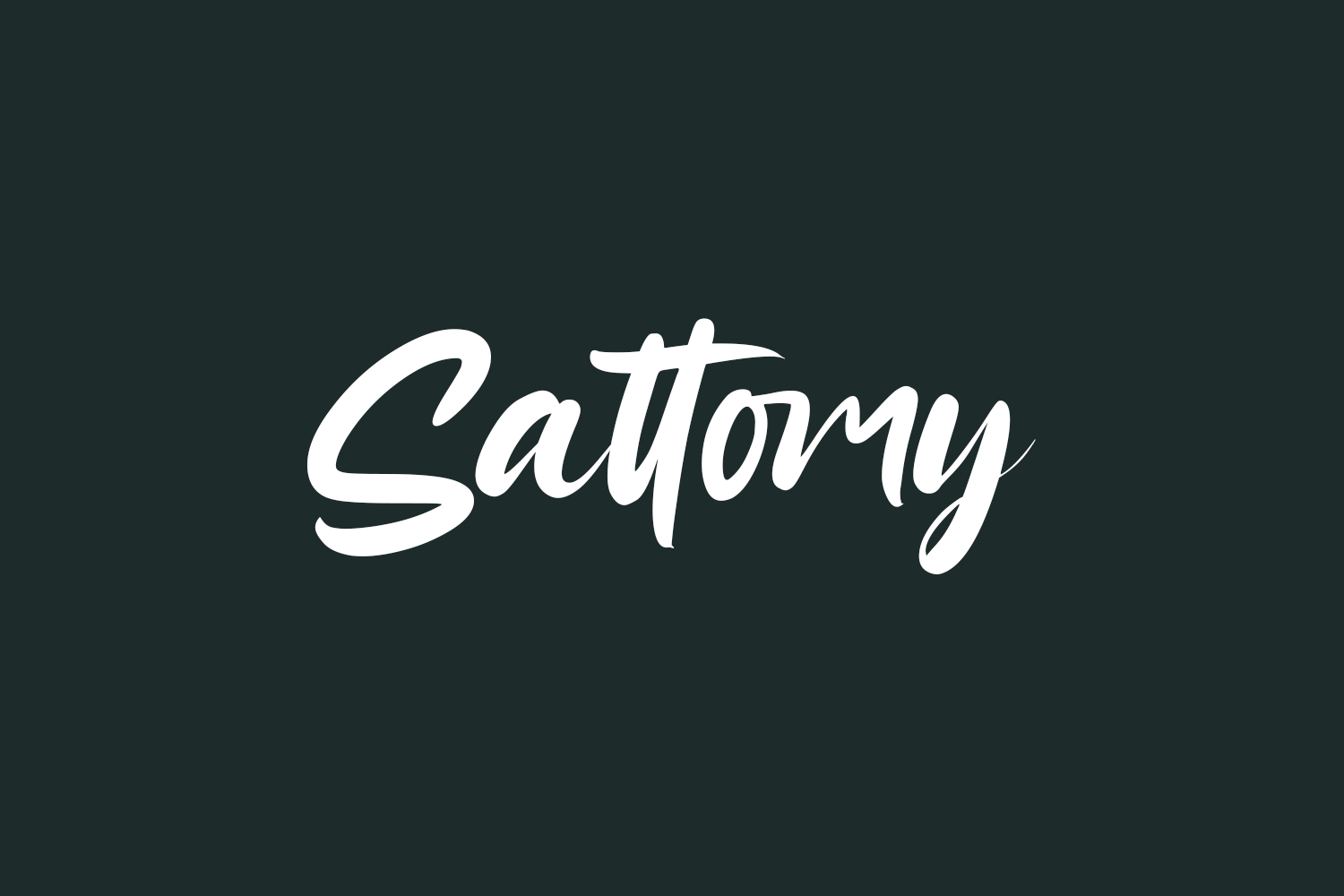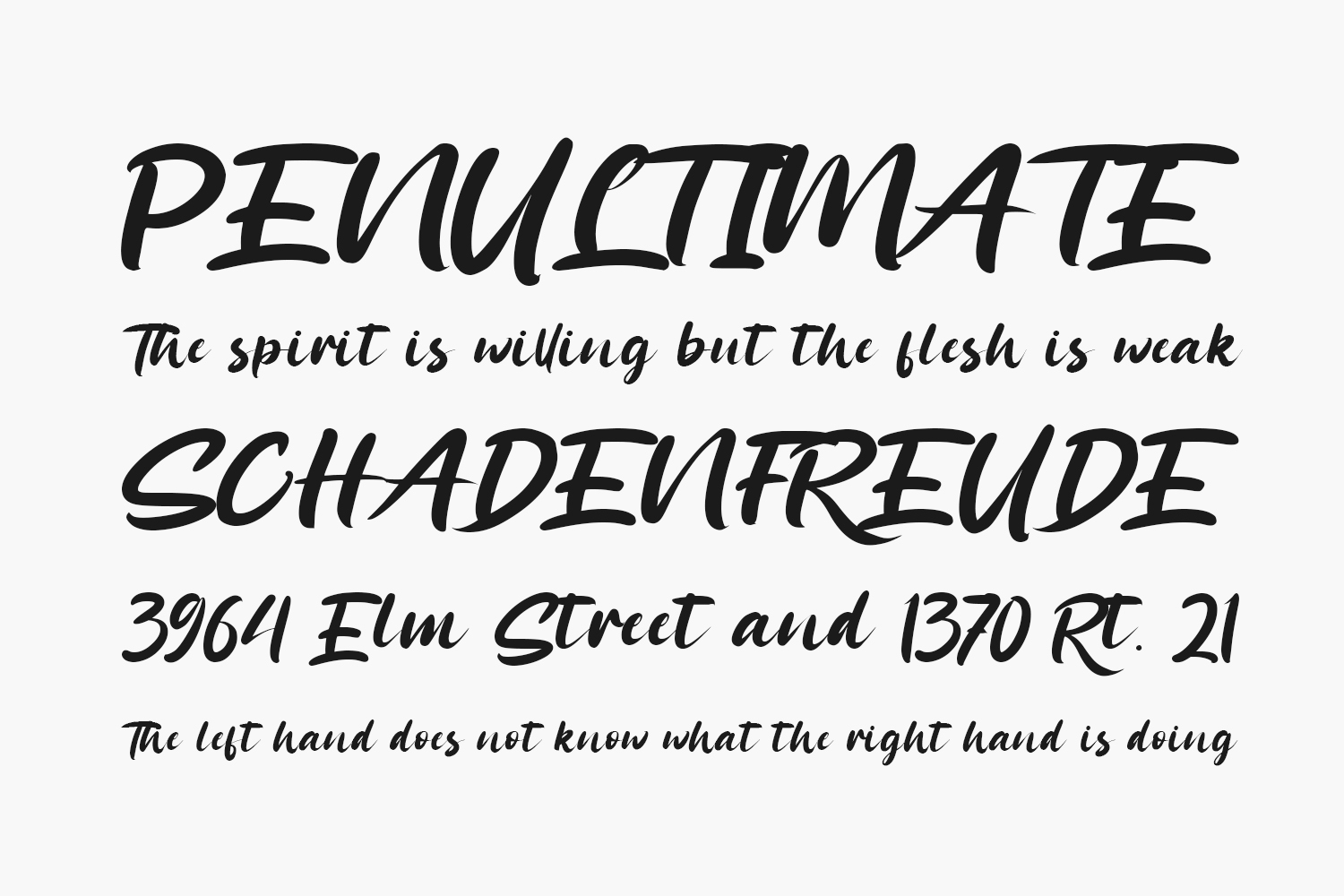
Sattomy Free Font is an elegant, delicate and flowing handwritten font that exudes grace and refinement. Its delicate strokes and elegant curves give it a timeless and sophisticated feel, making it perfect for any project that requires a touch of class and refinement. The font is perfect for creating a sense of luxury and beauty, making it ideal for invitations, social media posts and branding. With its delicate and flowing style, this font creates an emotional feeling of timeless beauty and elegance